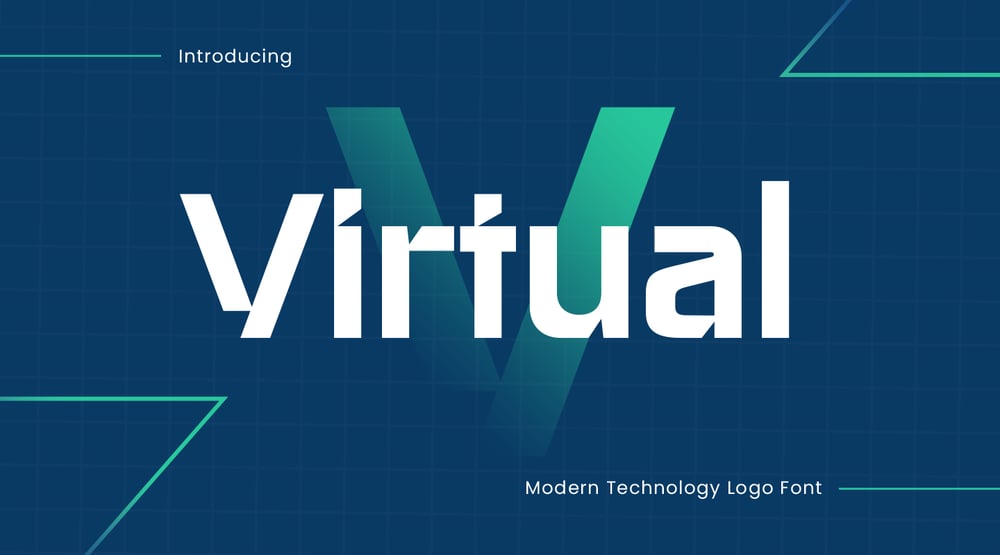
Virtual SS
Virtual SS font
Virtual SS Font Family was designed by Zamroni Hamzah and published by Sensatype Studio. Virtual SS contains 2 styles and family package options. Virtual is a modern technology logo font designed to bring a futuristic edge to your branding projects. Inspired by the sleek lines of cutting-edge tech, this font is perfect for logos, digital interfaces, and branding that demand a clean and innovative look. Virtual combines precision and creativity, making it ideal for tech companies, startups, or futuristic projects.The inspiration behind Virtual was to encapsulate the dynamic and ever-evolving world of technology. Its strong and clear letterforms are designed for readability while maintaining a distinct, high-tech style. Whether you’re working on an app interface, a tech product logo, or digital media design, Virtual ensures that your project looks polished and professional.With its unique technology characters and multilingual support, Virtual adapts easily to various design needs. It offers flexibility with punctuation, numbers, symbols, and alternative characters, providing a range of creative options for your logo and branding work.Virtual Modern Technology Logo Font Features: Unique Technology Characters Ready Unique Punctuation, Number, and Symbol Include 4 formats already Uppercase and Lowercase Multilingual Support Opentype Features Thank you and best of luck with your designs!